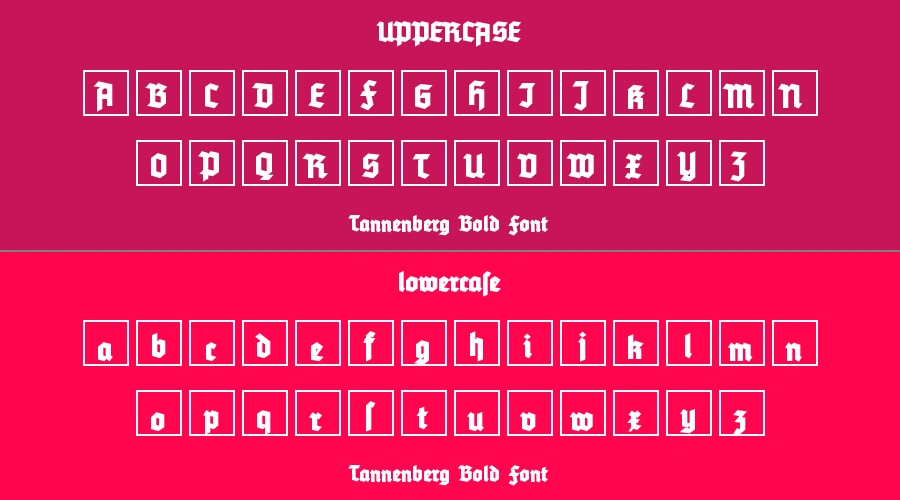
About Tannenberg Bold Font
Tannenberg Bold Font represents a sophisticated approach to type design, balancing architectural precision with sophistication. Perfect for book design, this font family showcases impressive reliability and cultural resonance throughout its character set. Designers appreciate its versatility and reliability.
Designers will appreciate nuanced touches including swash extensions and dingbat elements, adding sophistication to any project. These features become apparent in featured quotes, where language switching matters most. The careful treatment of spur details and generational relevance ensures optimal performance.